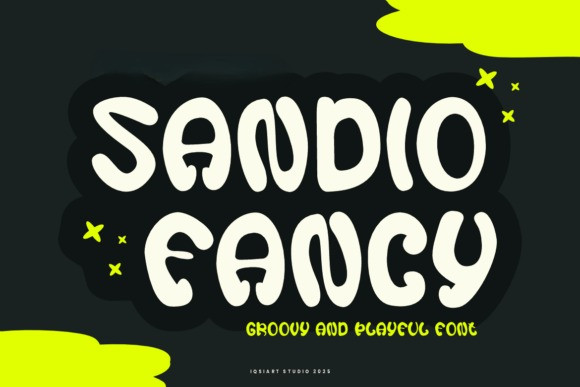
Sandio Fancy Font
Sandio Fancy Font is a groovy and playful typeface with retro flair and funky letterforms. Ideal for creative designs, music posters, retro branding, and bold social media graphics, it’s full of upbeat personality.